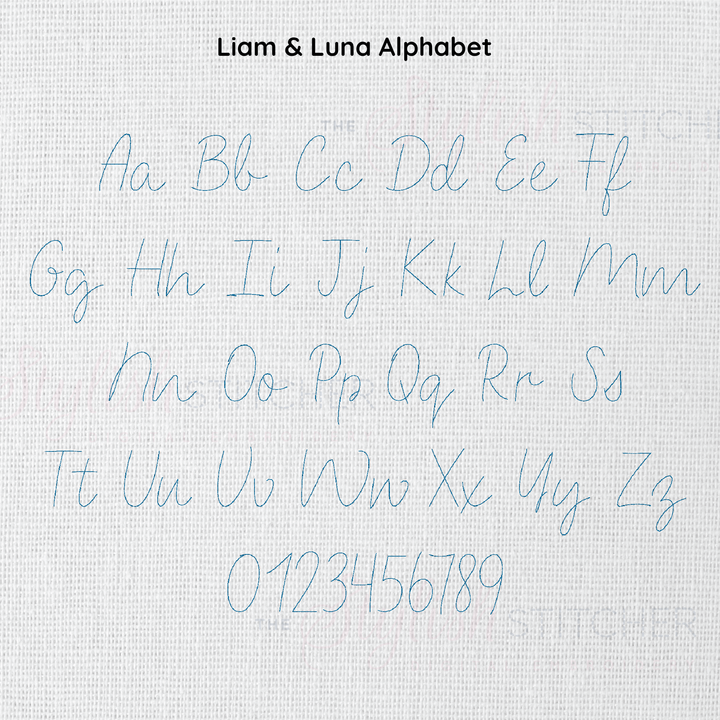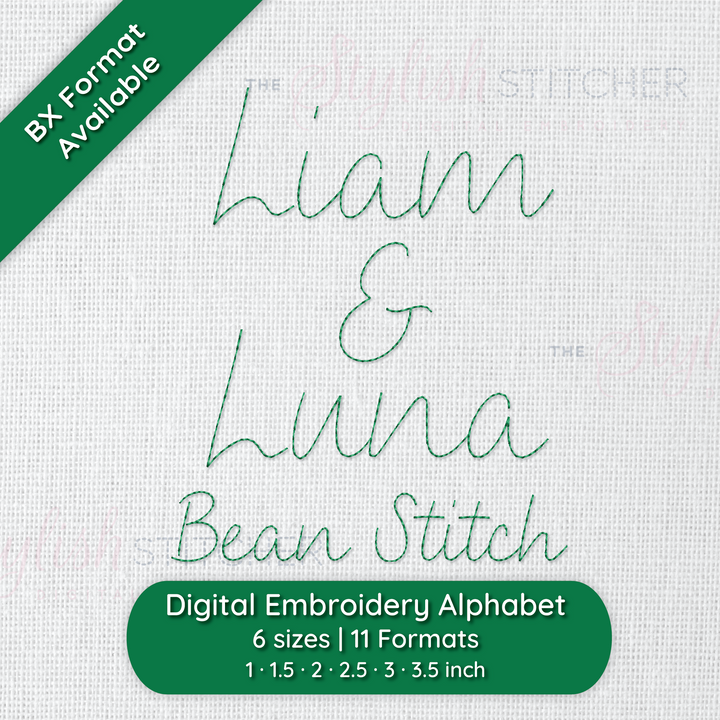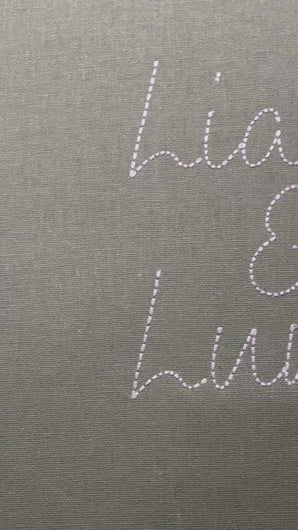
Photograph of stitched out Liam and Luna Bean Stitch embroidery font
Photograph of stitched out Liam and Luna Bean Stitch embroidery font alphabet
Video showcasing stitched out Liam and Luna Bean Stitch font
Liam & Luna Bean Stitch Embroidery Font
Liam & Luna combines a relaxed, handwritten feel with the precision of bean stitch, perfect for those who love a personal touch. Liam & Luna’s easygoing style brings a sense of warmth and familiarity to every project, making it ideal for names, quotes, or anything that needs a touch of charm. With Liam & Luna, your designs will stitch quickly and look effortlessly delightful every time.
Stitch Type: Bean Stitch